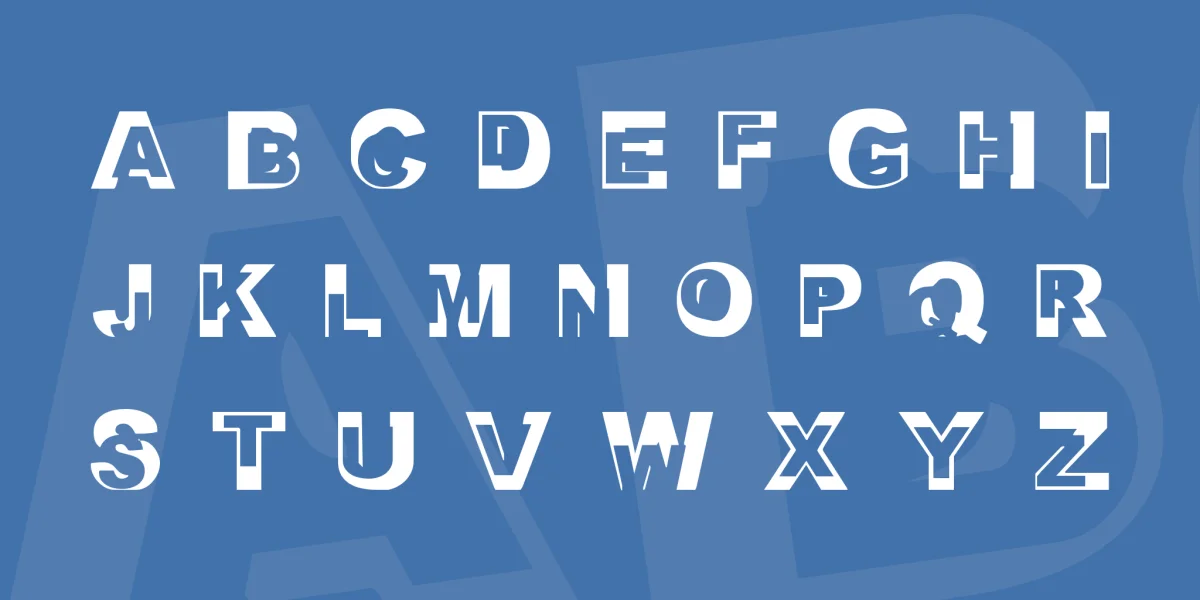
I couldn't think of an interesting name for this one - I'm not that keen on it, but I thought I'd chuck it up anyway. Caps only - nothing interesting.